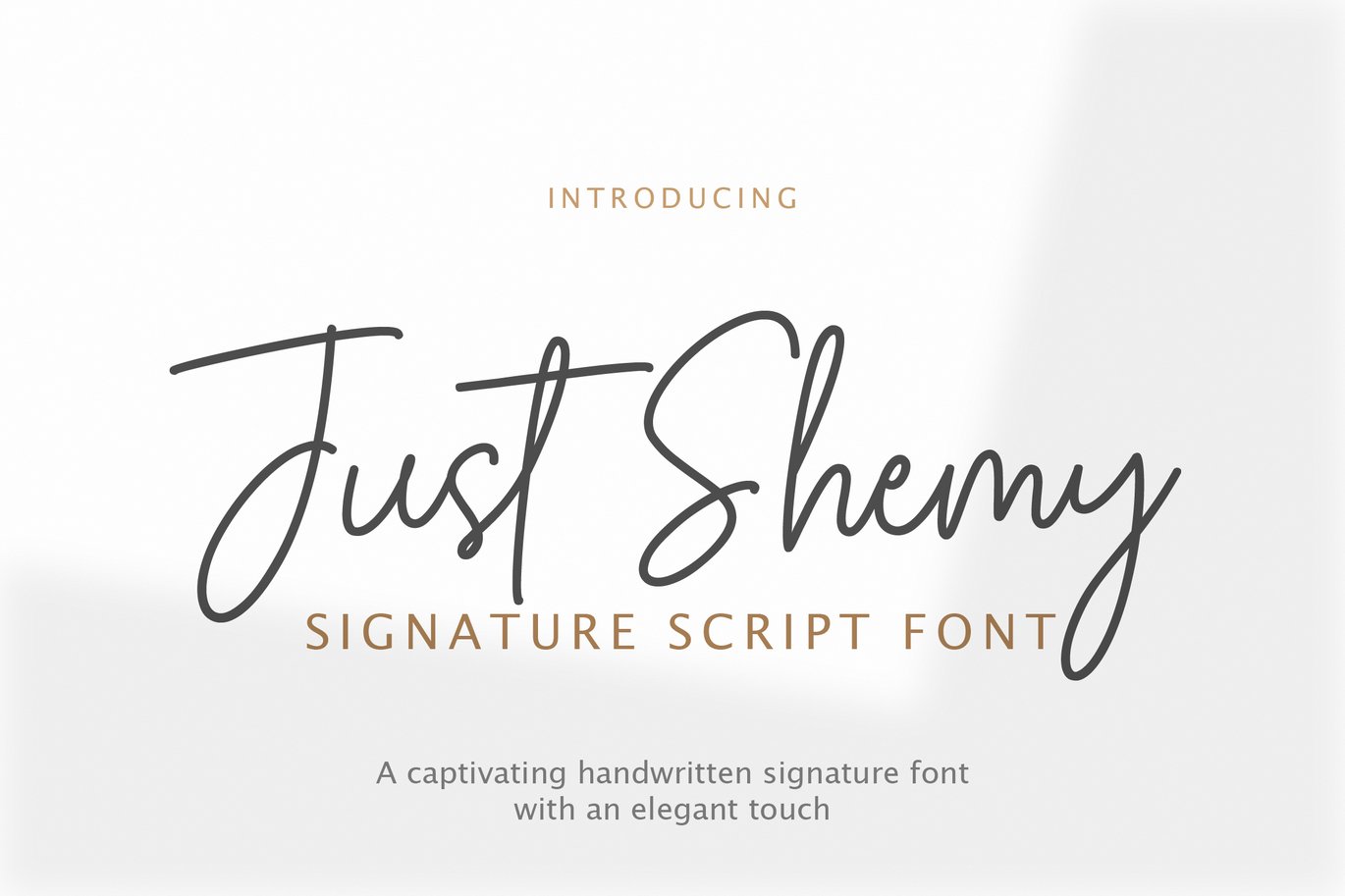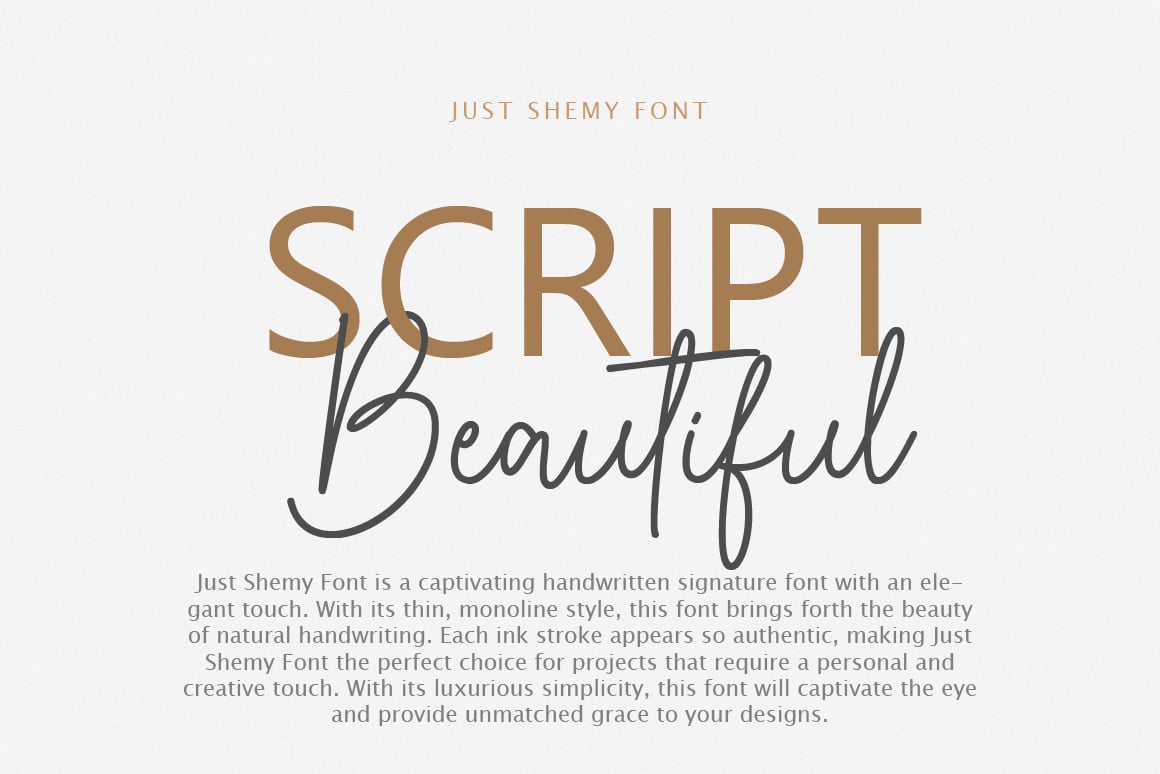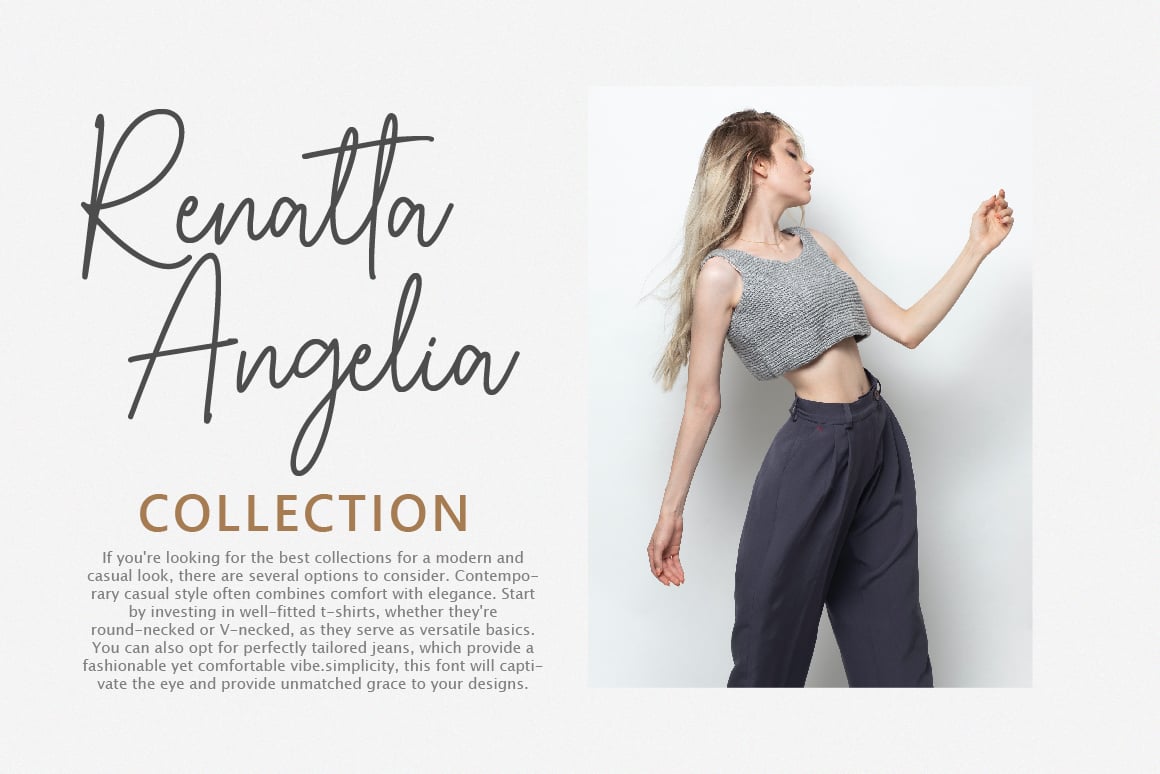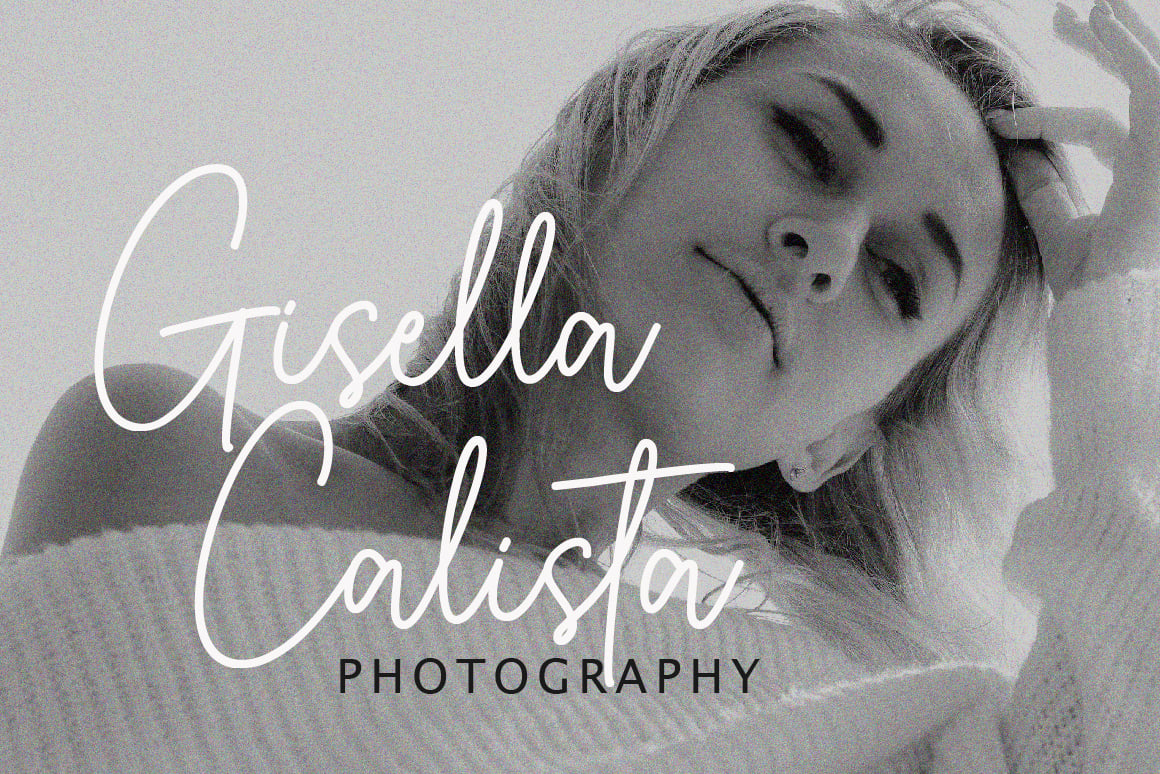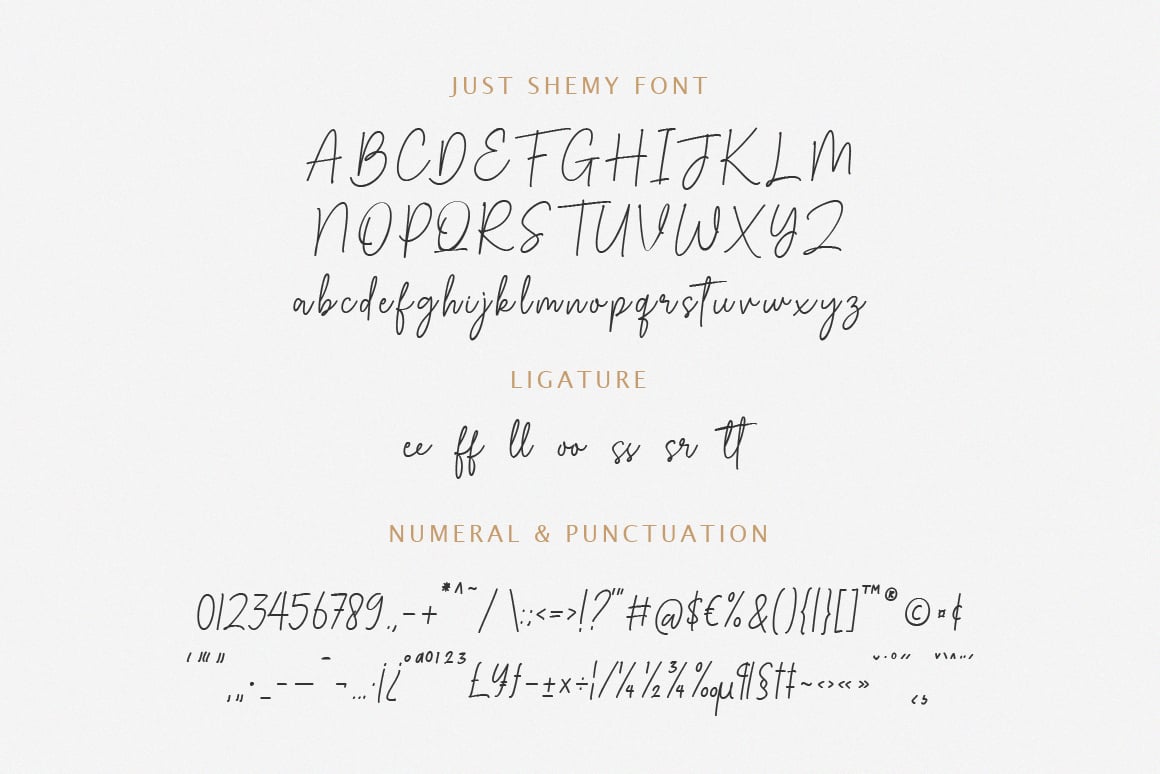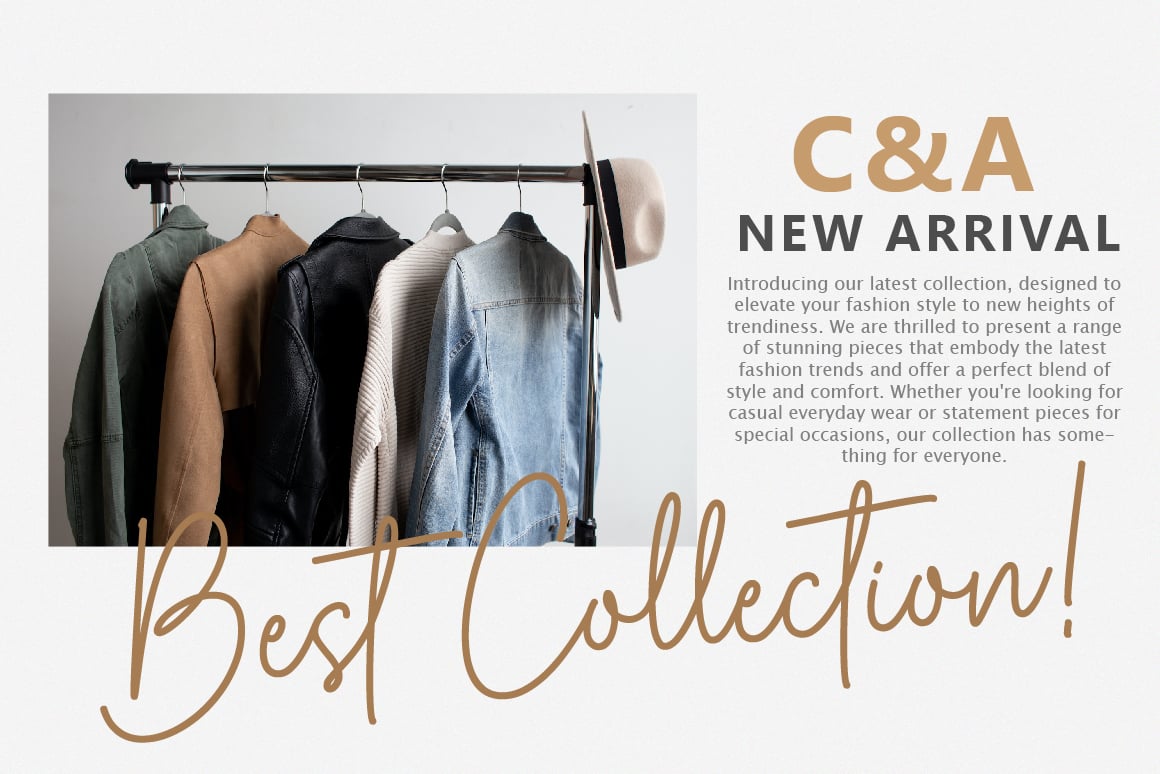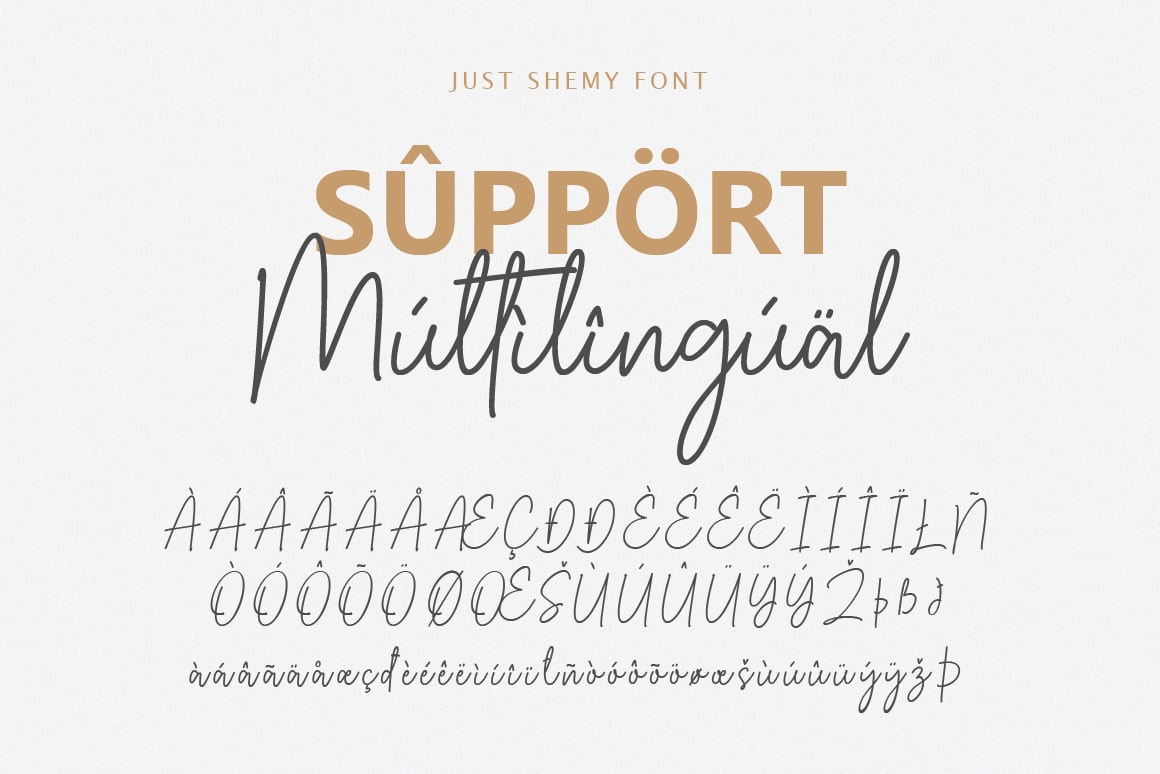
Just Shemy Signature Font
Just Shemy is a captivating handwritten signature font with an elegant touch. With its thin, monoline style, this font brings forth the beauty of natural handwriting. Each ink stroke appears so authentic, making Just Shemy Font the perfect choice for projects that require a personal and creative touch. With its luxurious simplicity, this font will captivate the eye and provide unmatched grace to your designs.
*Standard alphabet and punctuation
*Ligature Feature
*Multilingual Support: Afrikaans, Basque, Breton, Catalan, Danish, Dutch, English, Finnish, French, Gaelic (Irish, Scots), German, Icelandic, Indonesian, Irish, Italian, Norwegian, Portuguese, Saami (Southern), Spanish, Swahili, Swedish.